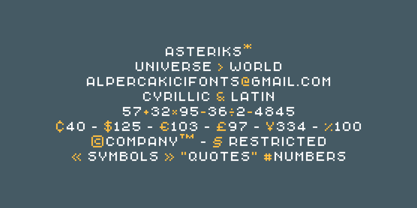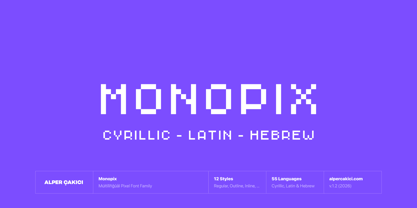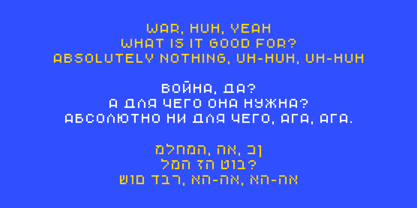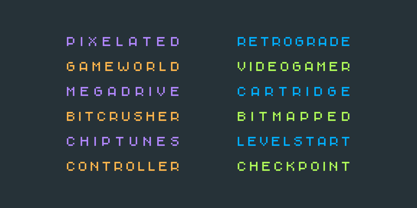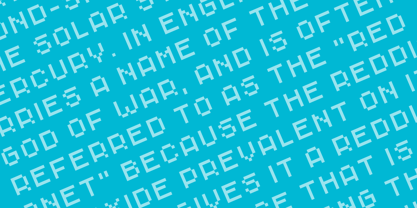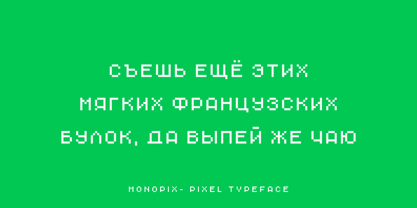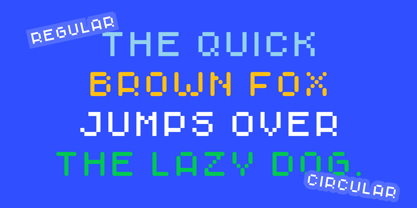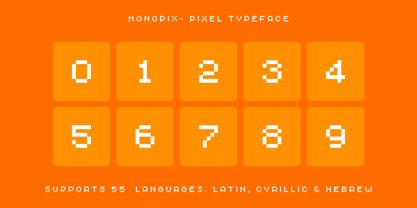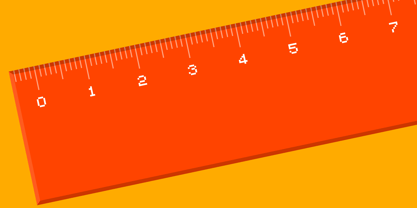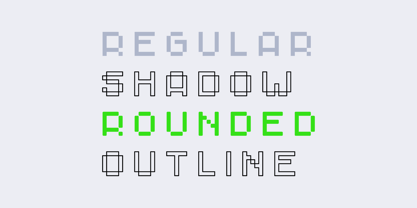
Monopix
The Monopix Font Family was designed by Alper Çakıcı and published by AlperCakici. Monopix contains 12 styles and family package options. More about this family
Monopix is a modern pixel typeface that blends retro 8-bit charm with clean contemporary precision. Designed for versatility, it delivers crisp readability while preserving the nostalgic character of classic bitmap typography. Monopix comes in 12 versatile styles: Regular Outline Inline Shadow Circular Outline Circular Inline Circular Shadow Rounded Outline Rounded Inline Rounded Shadow From game titles and esports branding to posters, social media graphics, UI design, packaging, and tech-inspired identities, Monopix adapts effortlessly. The Circular and Rounded families soften the pixel aesthetic for modern branding, while Outline, Inline, and Shadow styles add depth and dimension.